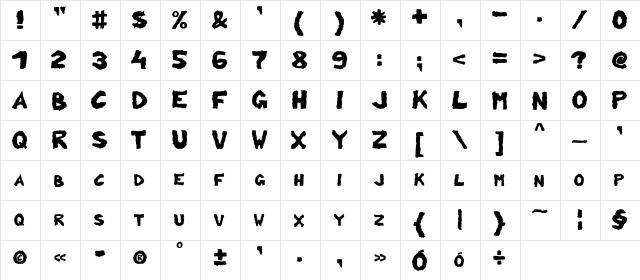
Wydzieranki Regular
Design Context for Wydzieranki Typeface
Wydzieranki is a composed and adaptable typeface that performs quietly and consistently across a wide range of design contexts.